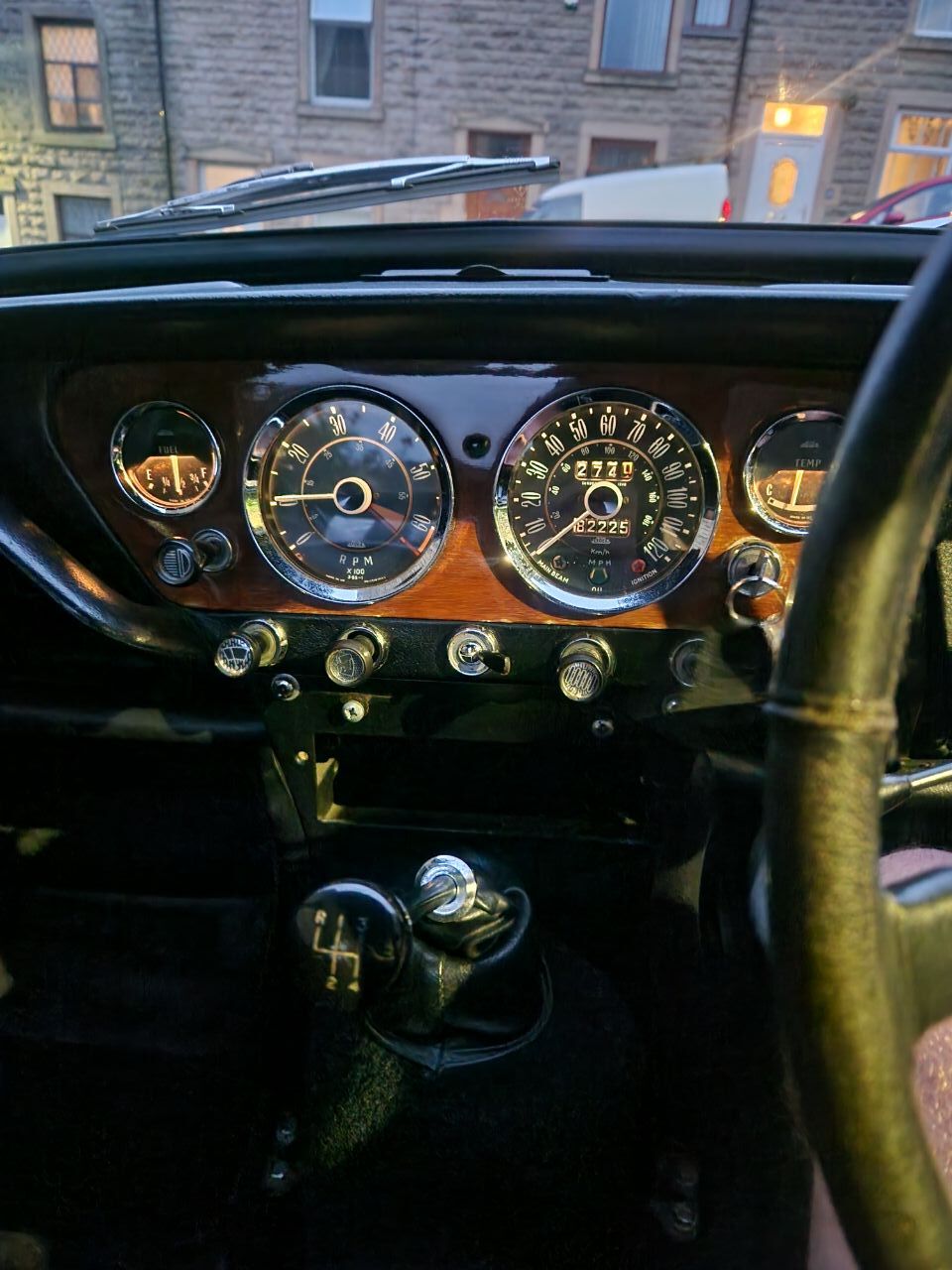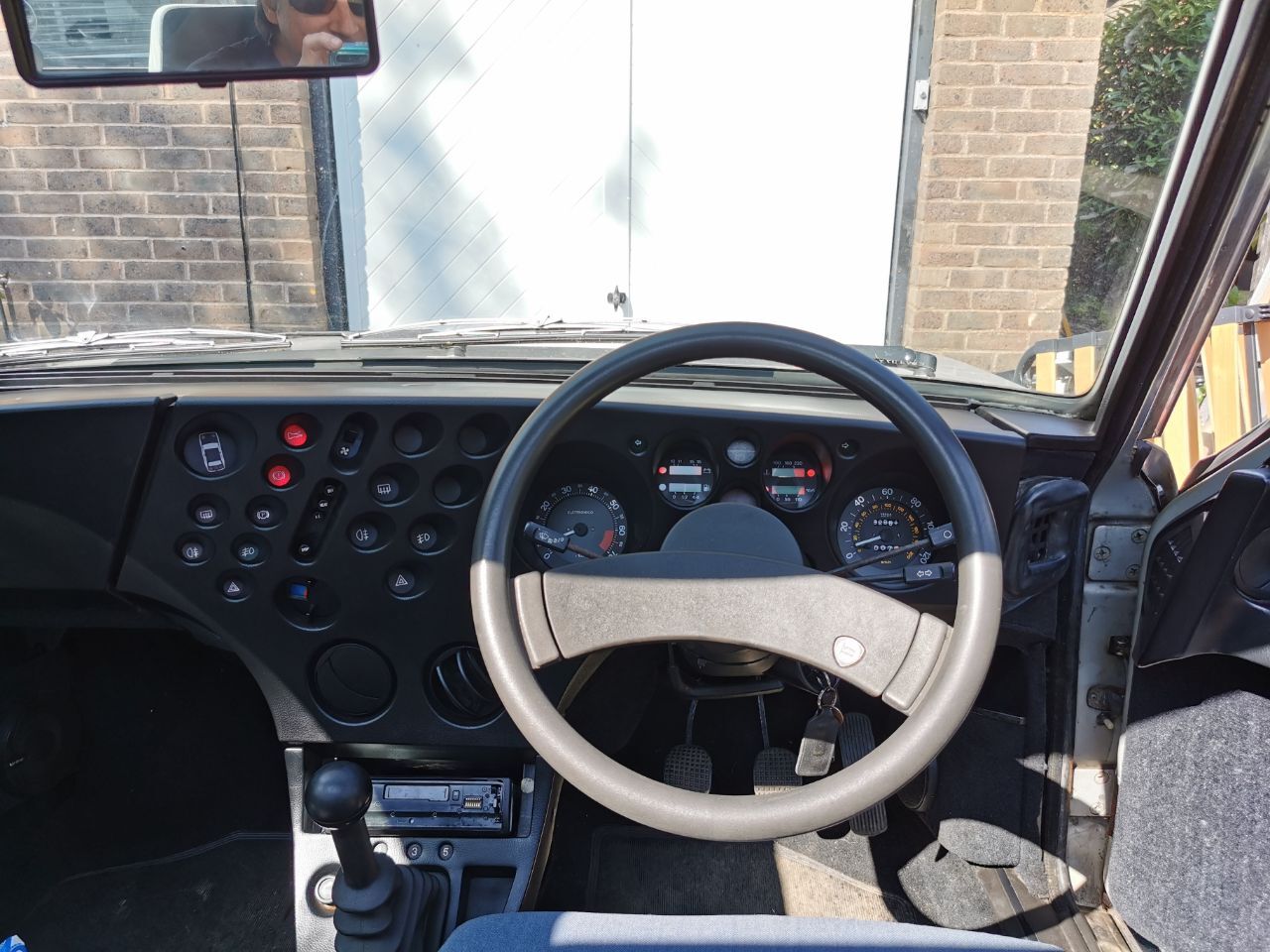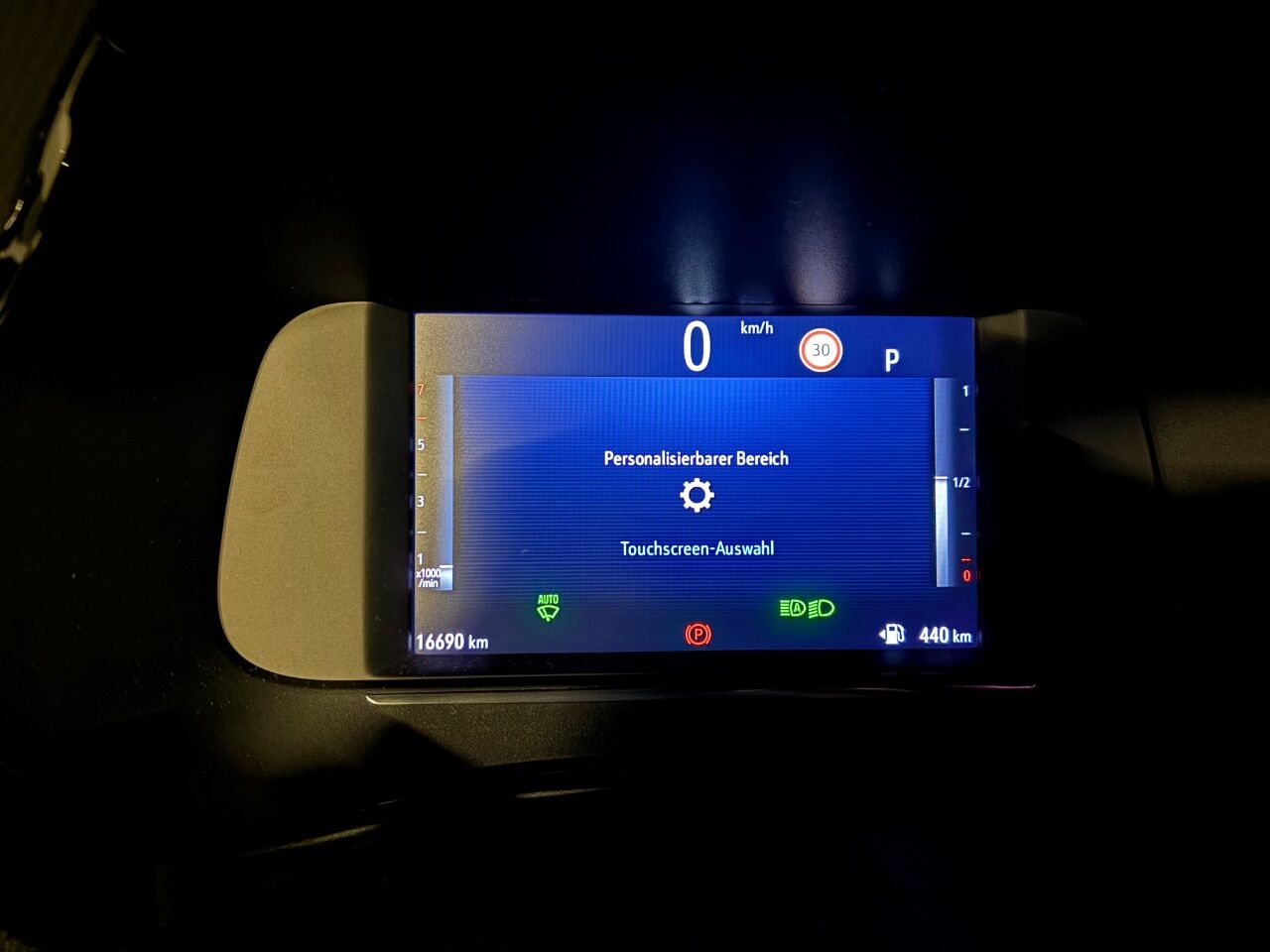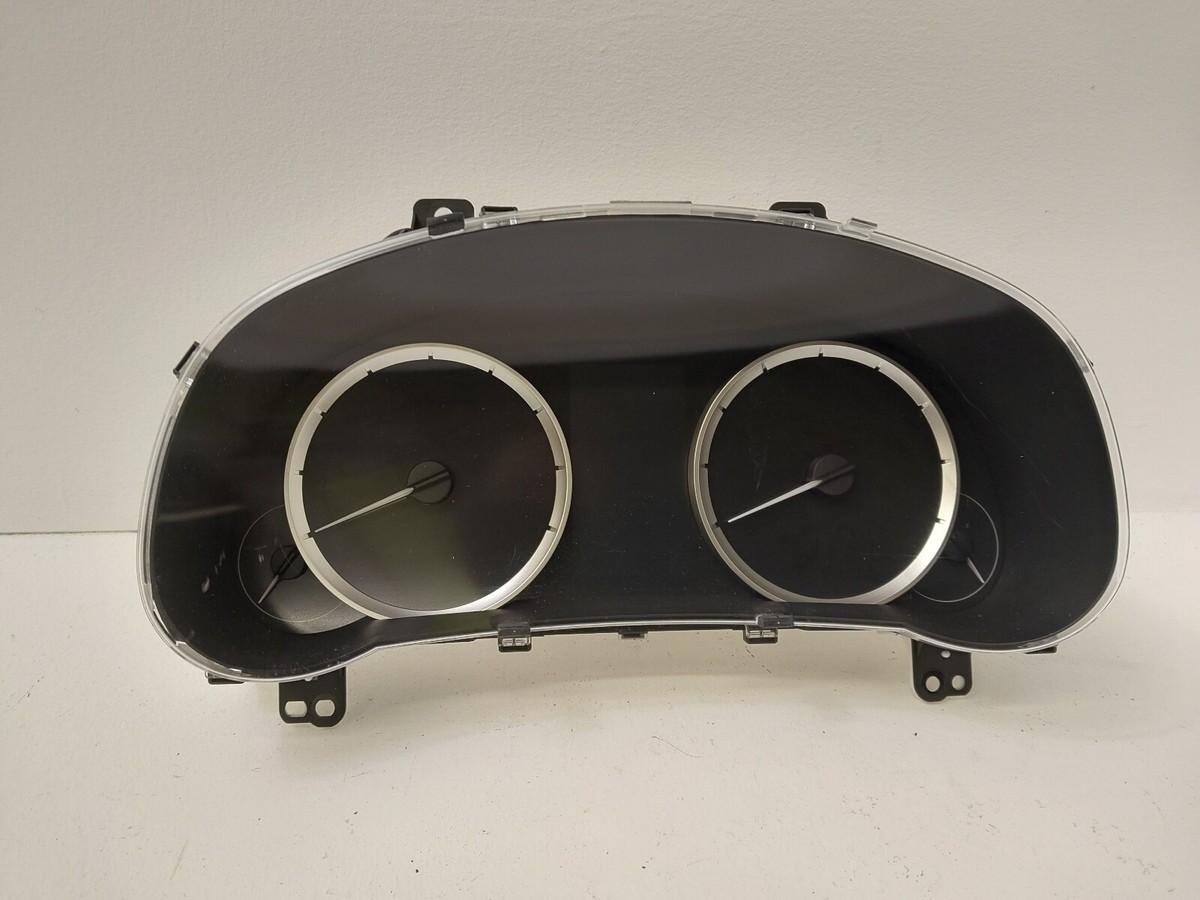
Best and worst instrument fonts
Ford Sierra mk1 had a much neater, easier to read and less cluttered speedometer than the mk2 GL-upwards and all Sierras post-'89. I never liked the half-moon rev counters though, as the markings are too close together like higher-spec mk4 Escorts.
I could never gel with this generation Peugeot 308 Dashboard with the rev counter that went the wrong way round.
yet somehow super cool when on an X/19
I guess this kinda fits here, under the heading of the most mad looking dash layout that actually works surprisingly well in the real world.
This looks like it shouldn't have ever made it outside the world of a prototype that was designed to turn heads at motor shows.
Honestly, from the drivers seat it actually works - and works really rather well!
Fiat/Lancia also get a mention I think for being one of relatively few companies who did the circumferential text around the speedometer and making it look not shit.
Illumination was really nice too.
Always quite liked the instruments on the earlier versions of the mk3 Lexus IS that seemed to ‘blend’ analogue and digital.
The Mk11 Honda Civic seems to attempt to do similar…
I was driving a Land Rover Discovery Sport this morning. Its attempt at blending analogue and digital was less subtle...
That's horrific!
Also, the font is one that Citroen used about ten years ago, it looked shit then as well.
It's like the dashboard equivalent of (wait 'till you see it) ...
These on the last couple of years of P12 Primeras that hide when off.. I'm not so sure. I think I preferred the older type.
The G20 3-Series did something similar, with ‘filtered’ analogue clocks - I think  many were initially under the impression it was fully digital, but in the right light  you can just about make out the ‘gubbins’ beneath…
Absolutely fucking hateful Opel Corsa hire car this week.
That looks like a "my first HMI" project you'd get as an apprentice 🤣🤣🤣.
Nothing really to scale, no imagination, functional but very much a "phase 1" project 🤭🤭🤭.